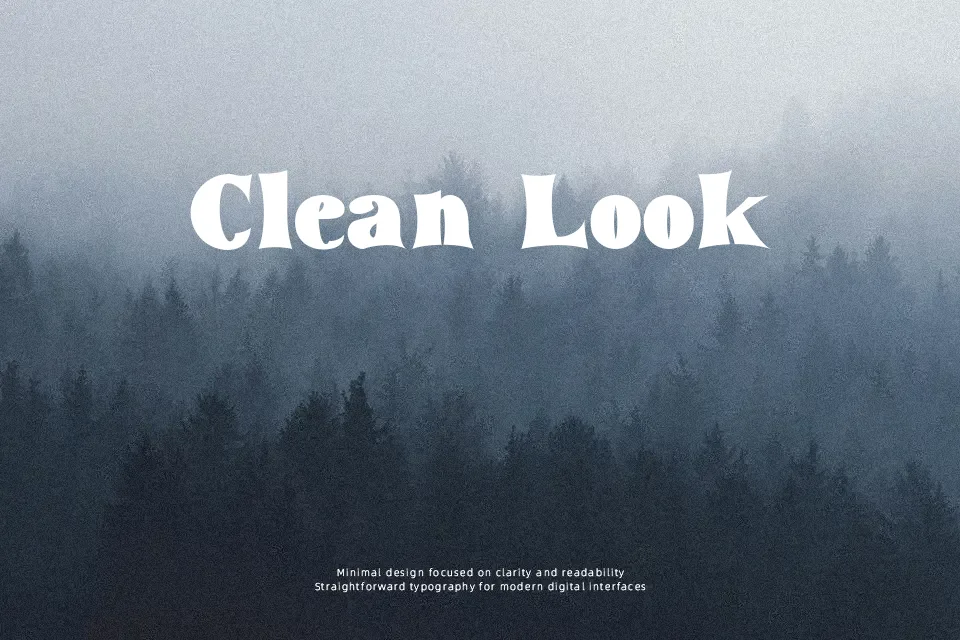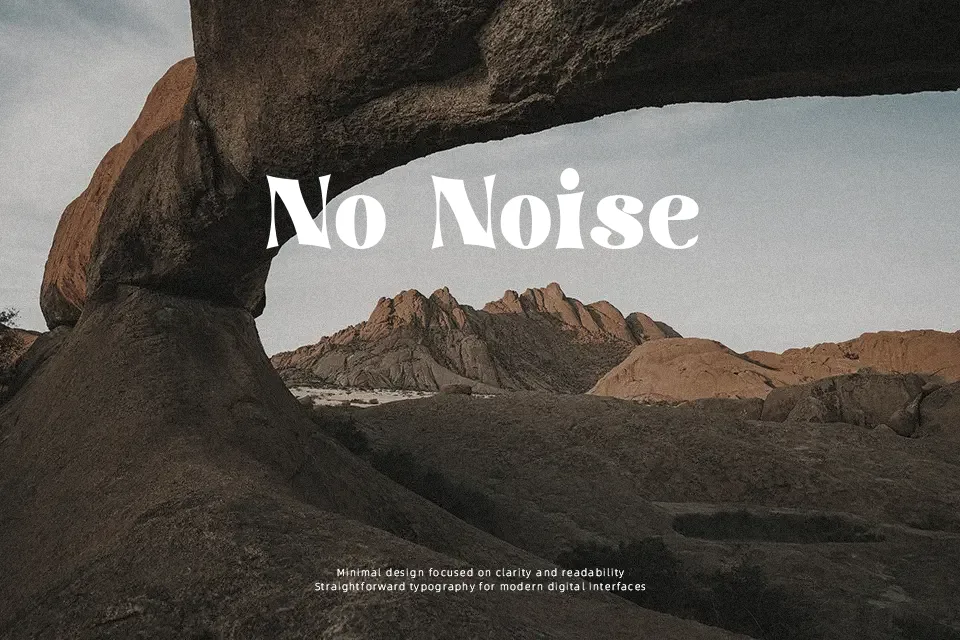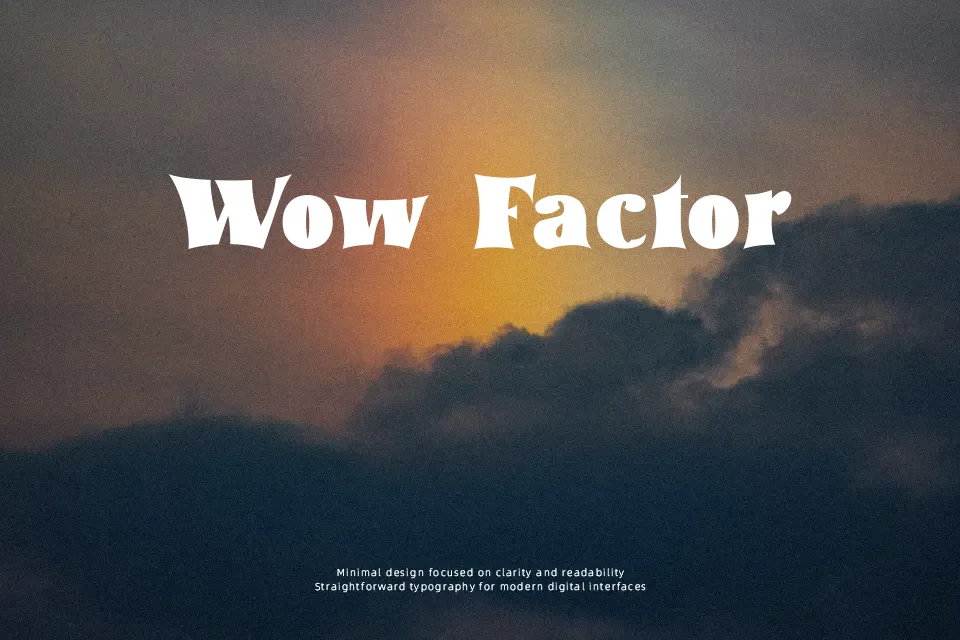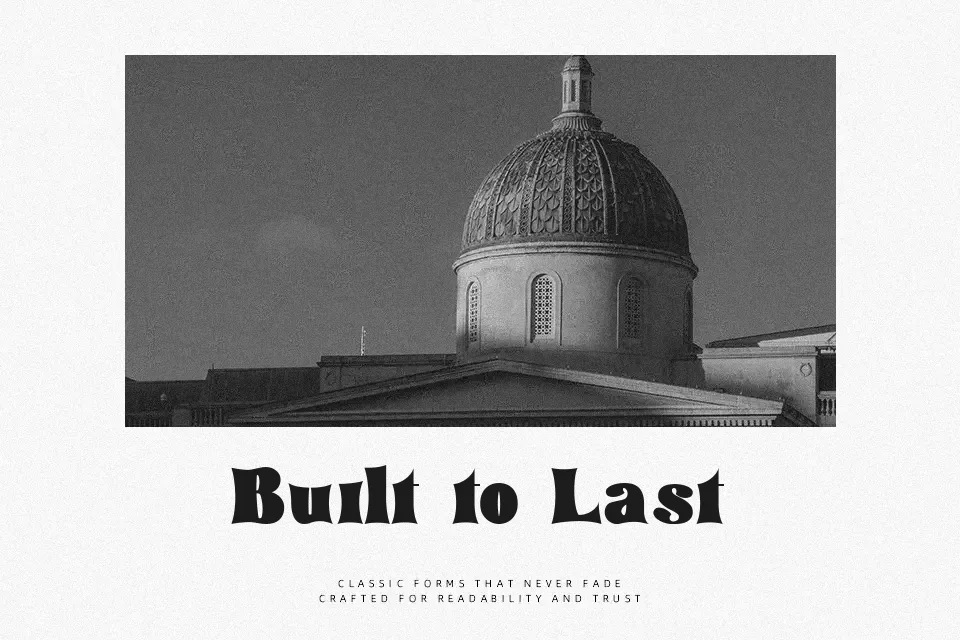
Tommy Font
Designed by 177Studio
Headline layouts and branding collateral gain immediate retro presence when paired with Tommy Font. The typeface pairs thick, curved vertical stems with flared serifs, creating an unmistakable seventies aesthetic across its uppercase and lowercase sets. Generous horizontal proportions and moderate letter spacing ensure that titles remain readable across poster headers and apparel merchandise. However, the heavy weight and decorative contours reduce clarity when scaled down, making the design ill-suited for dense body copy or small product specifications. When set at generous display scales, the letterforms preserve comfortable visual rhythm and provide reliable distinction against busy illustrated backgrounds.
Best For: vintage packaging labels,music event posters,cafe menu headers,apparel graphics
Not Ideal For: continuous paragraph reading,dense editorial layouts,mobile interface labels,technical documentation
Perfect for headline, logo, and packaging, with a bold and display style.